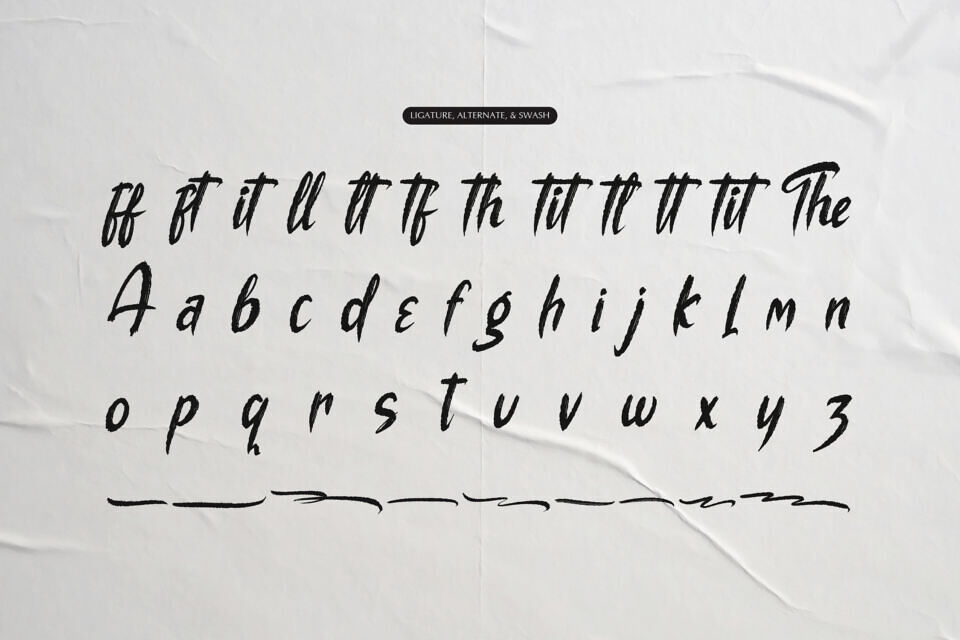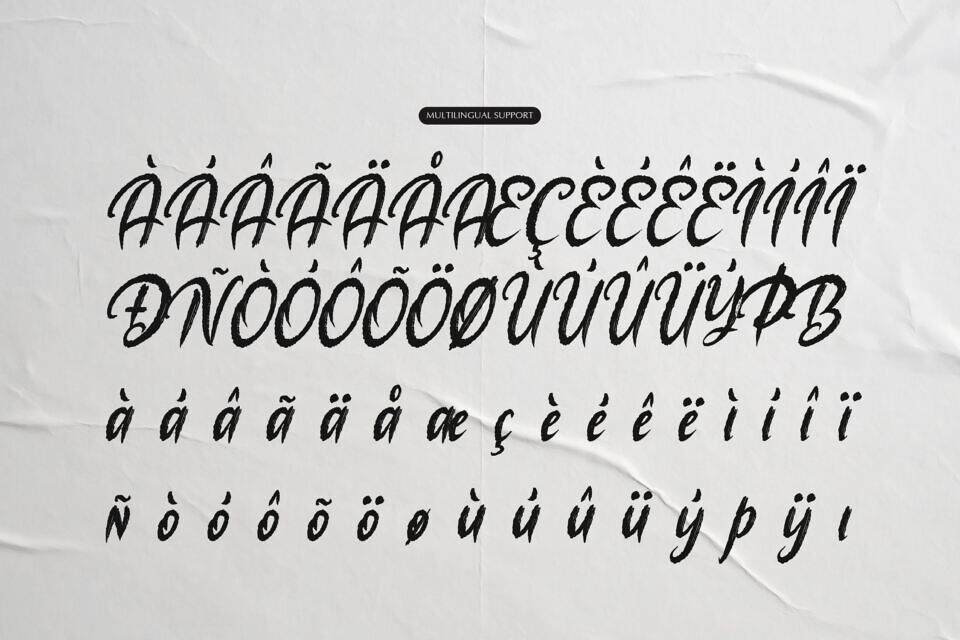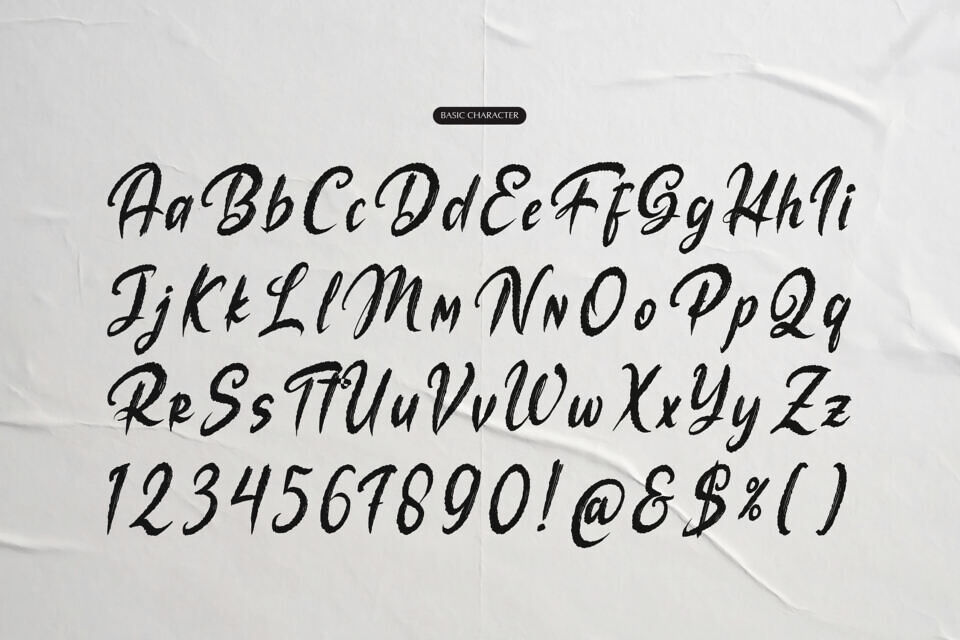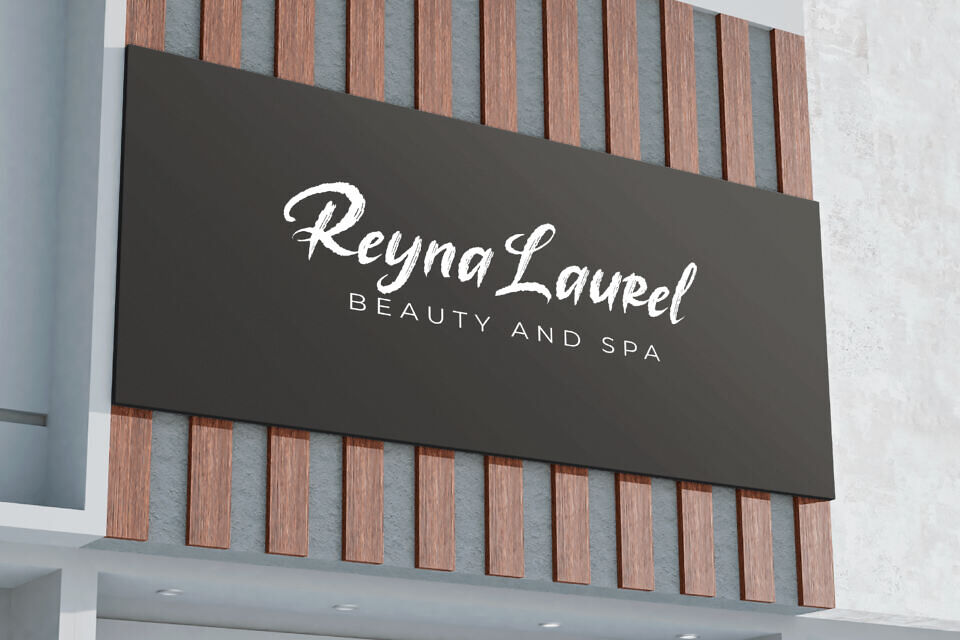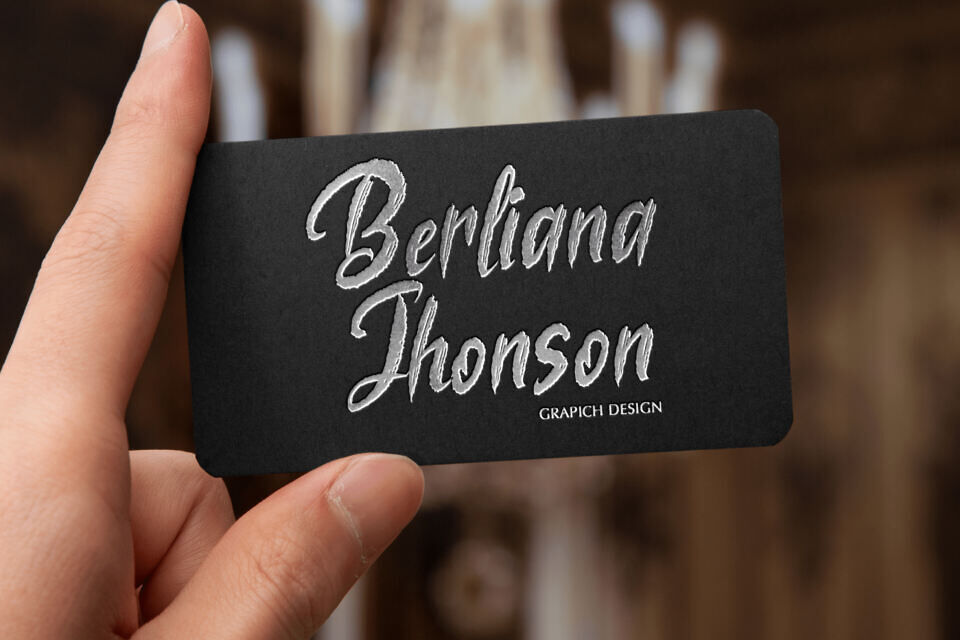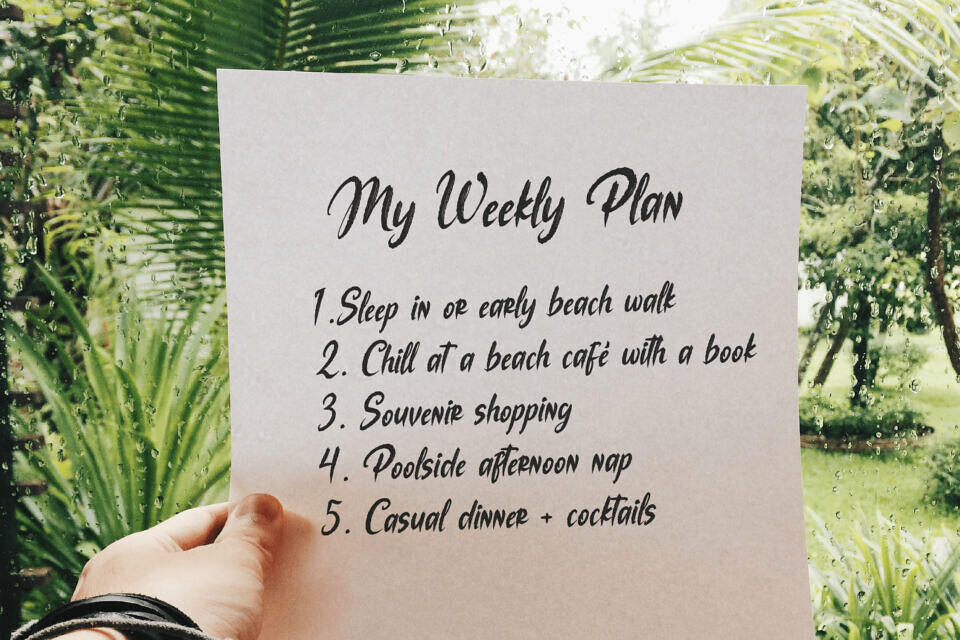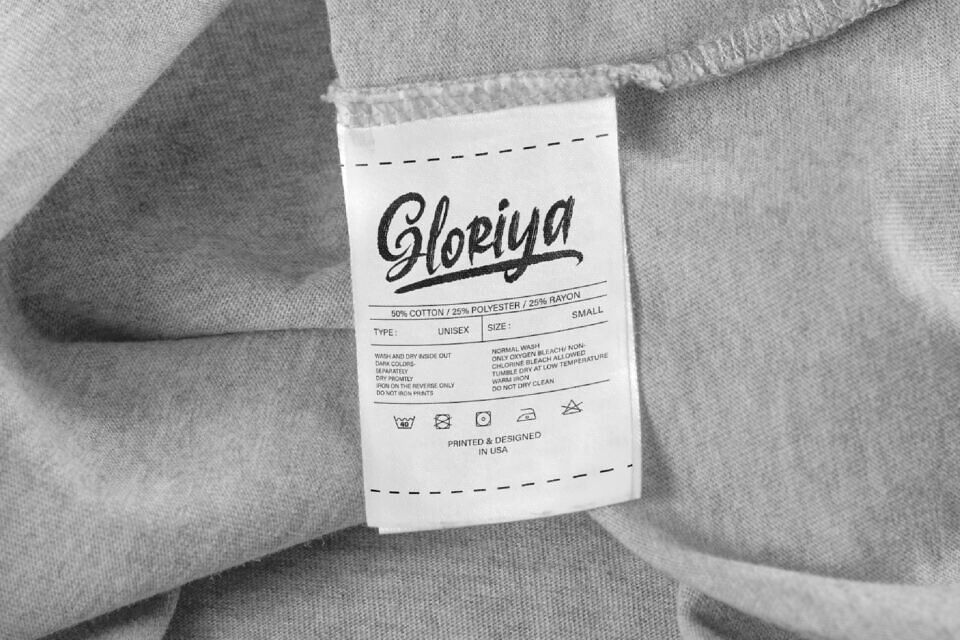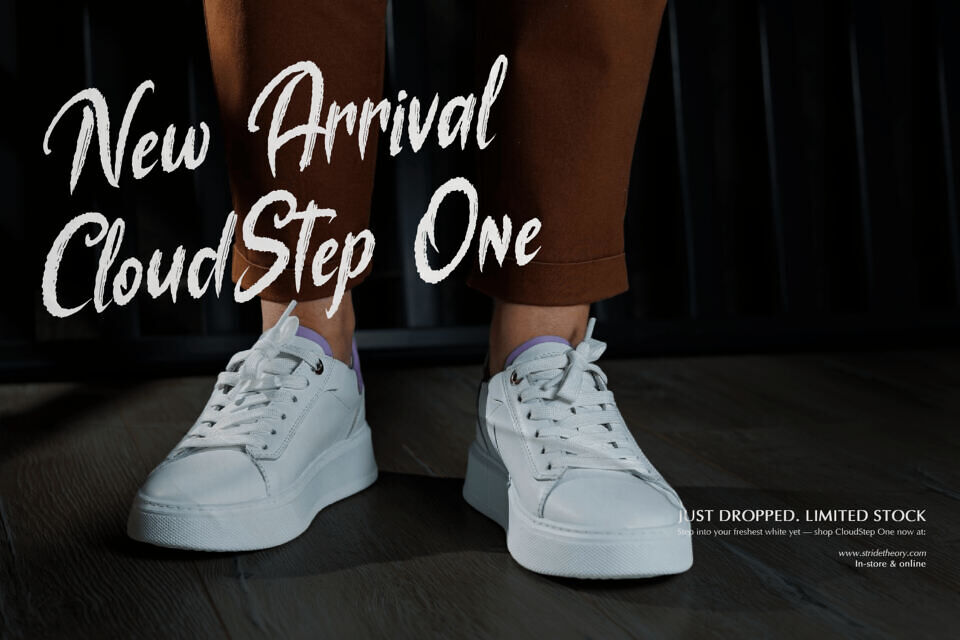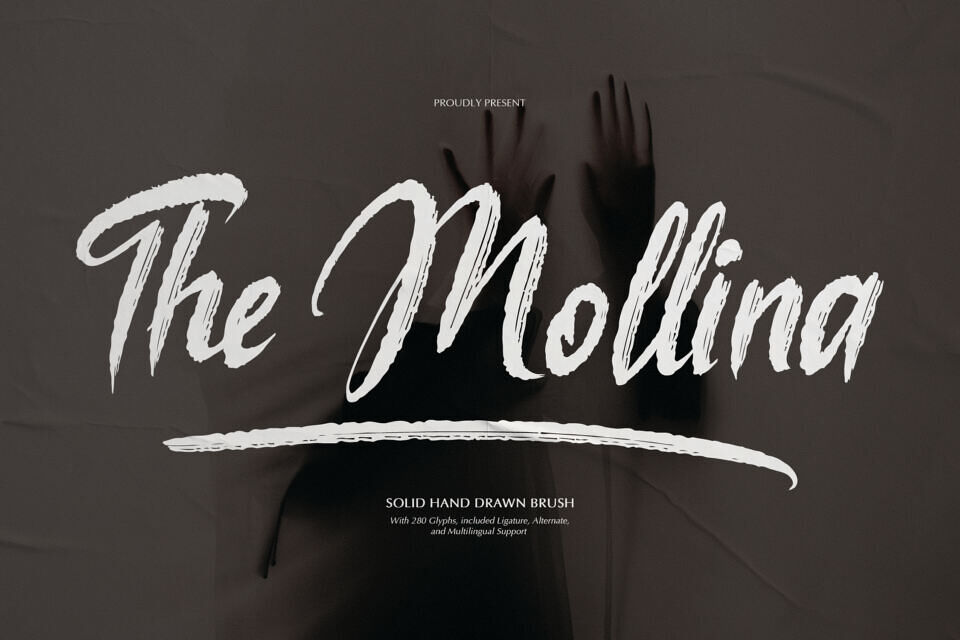
The Mollina Font
The Mollina is a Solid Hand Drawn Brush font from Gracetypestudio, suitable for any projects such as: logos, branding projects, homeware designs, product packaging, mugs, quotes, posters, shopping bags, t-shirts, book covers, name card, invitation cards, greeting cards, label, photography, watermark, special events, and all your other lovely projects that need a Solid Hand Drawn Brush taste.